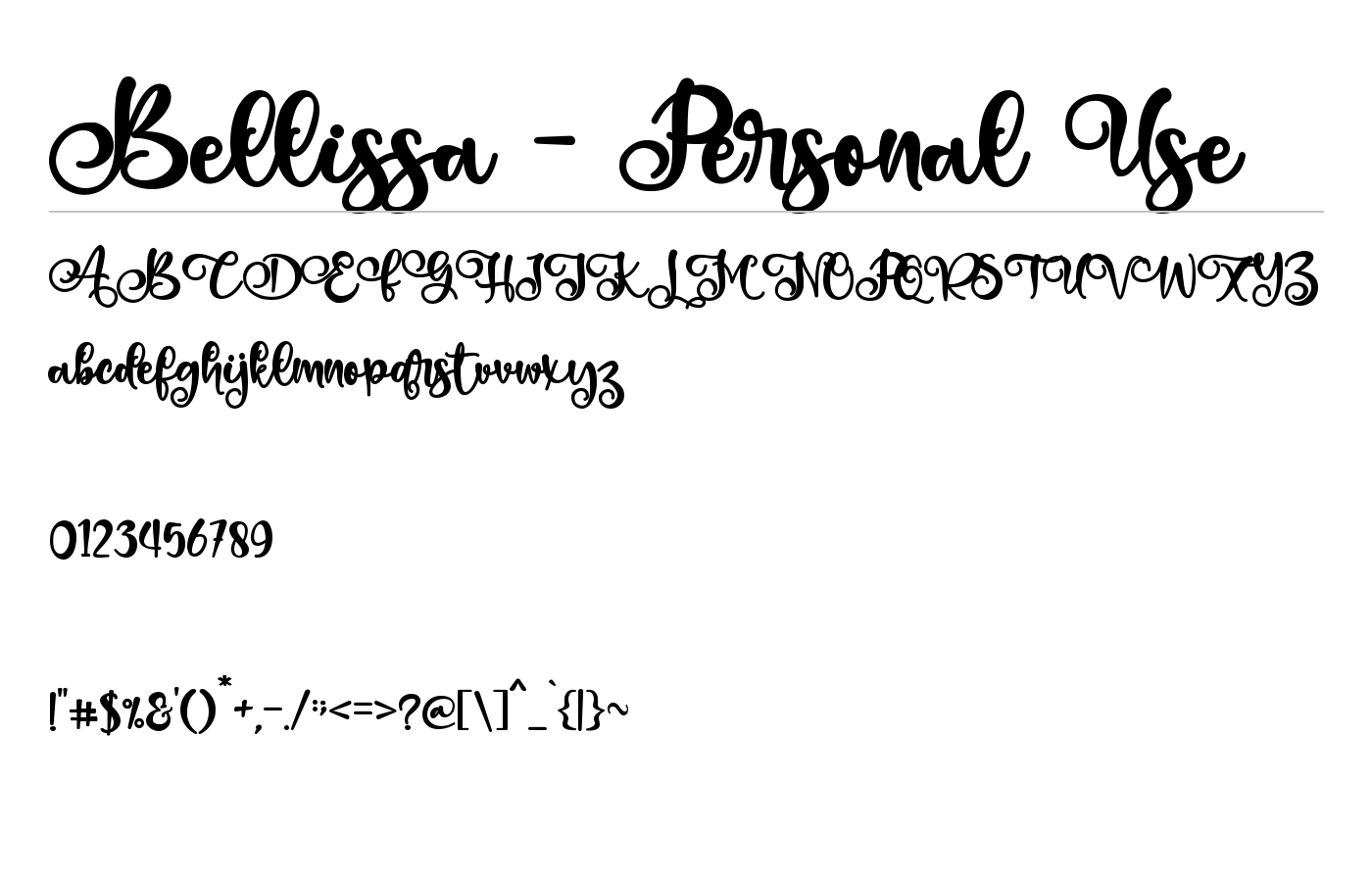
Bellissa is a playful and elegant script font with fluid, rounded strokes and decorative swirls that give it a charming, hand-lettered feel. Its lively, connected letterforms and distinctive uppercase curves make it perfect for personal projects, invitations, and branding that seeks a whimsical yet refined touch. This font works best for headlines and logos where a warm, friendly personality is desired.
Bellissa - Personal Use Font
About Bellissa - Personal Use Font